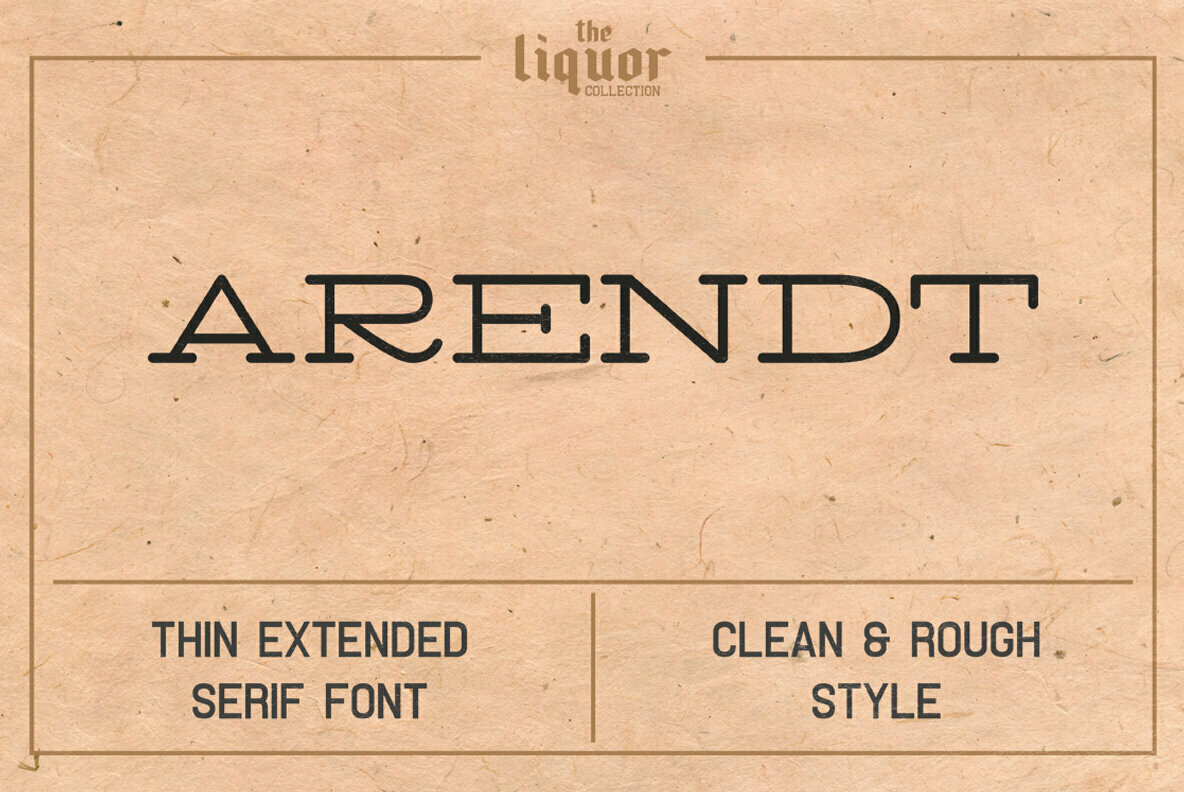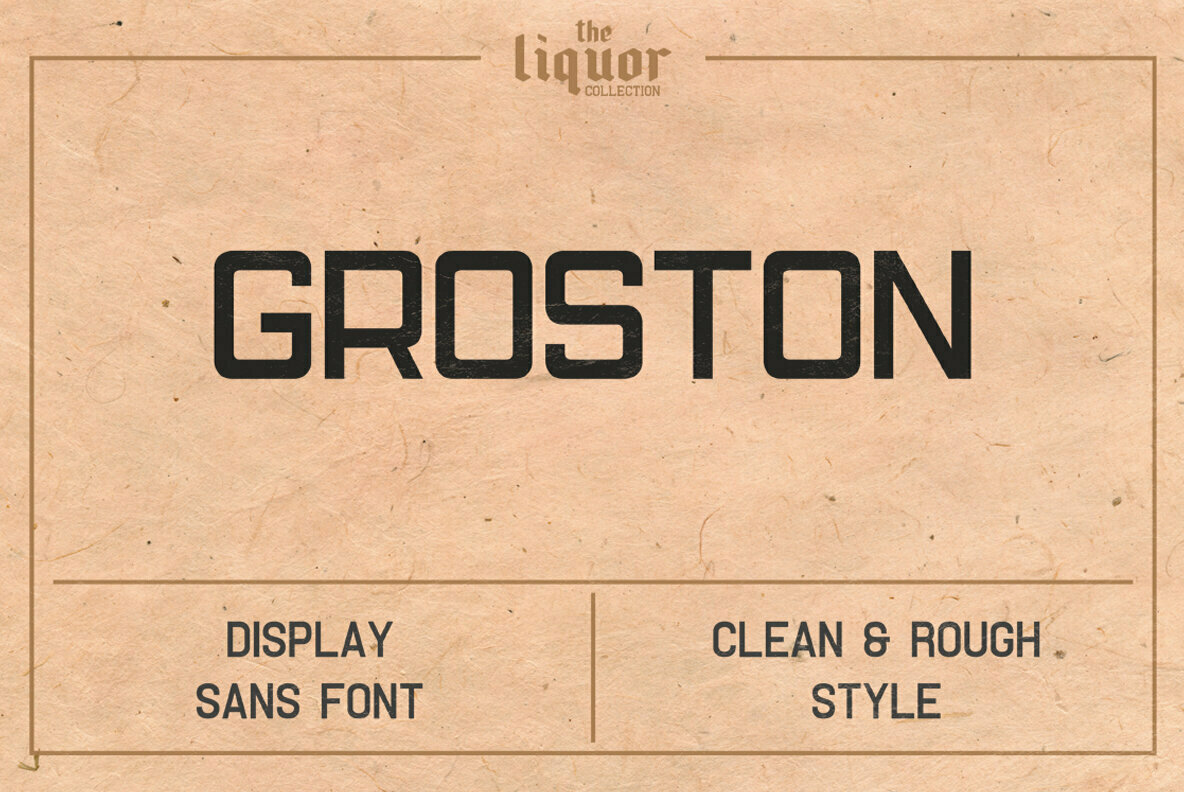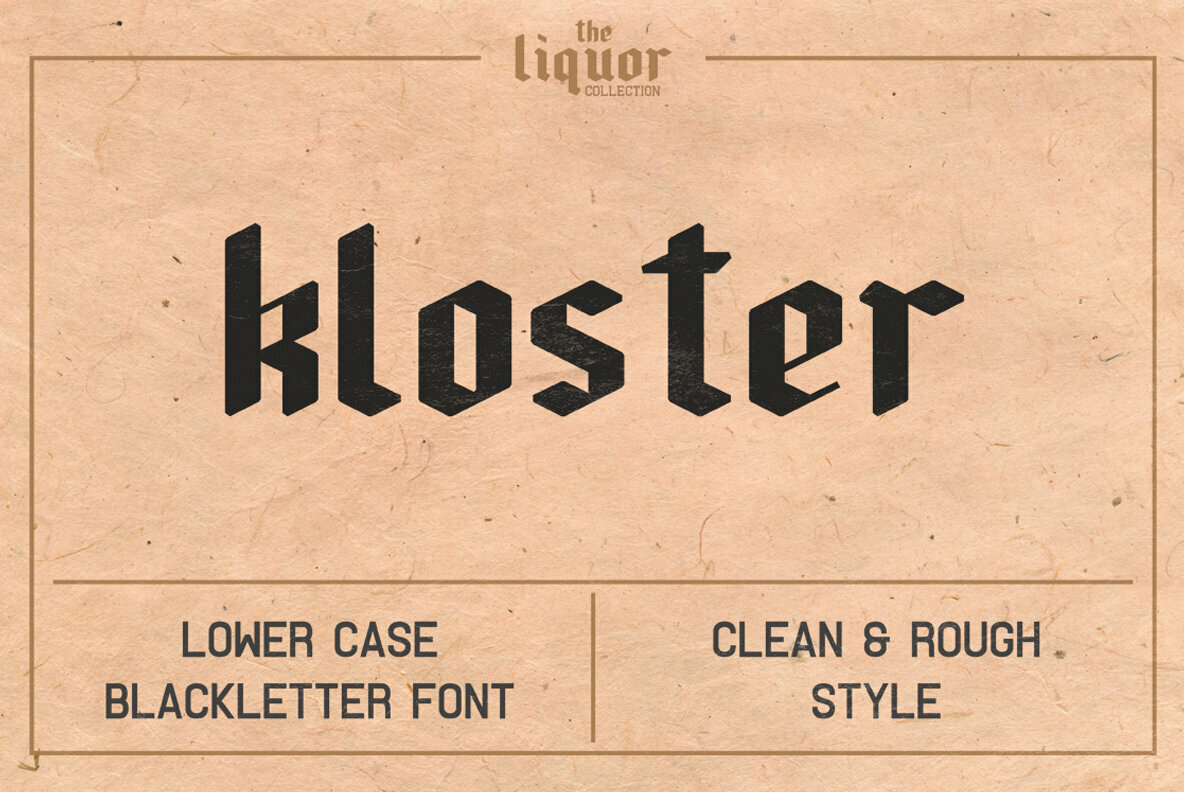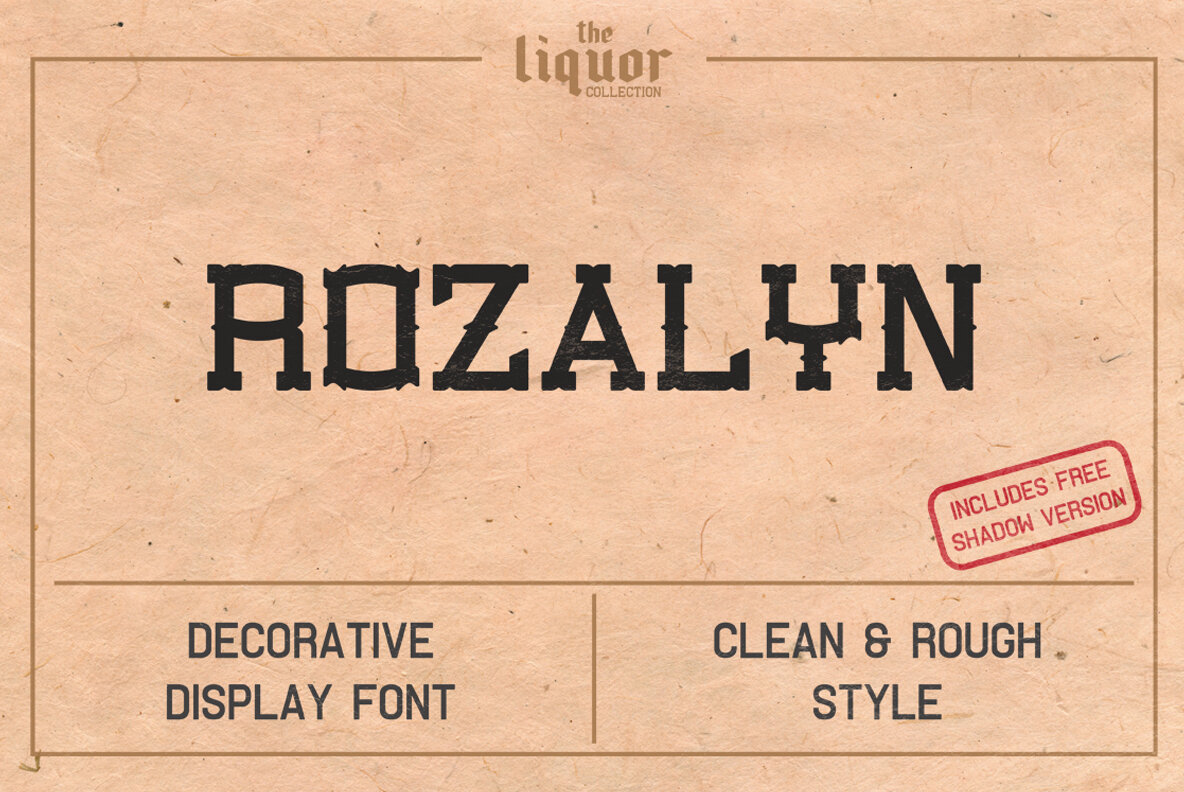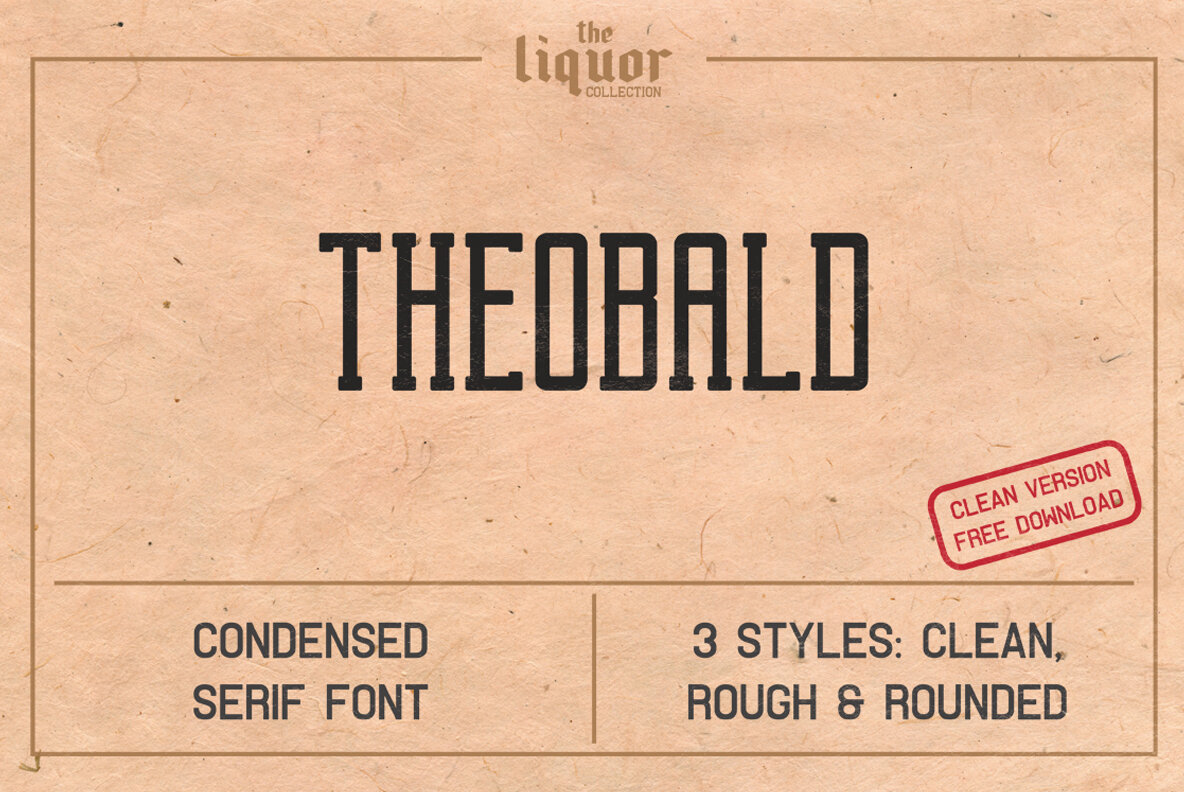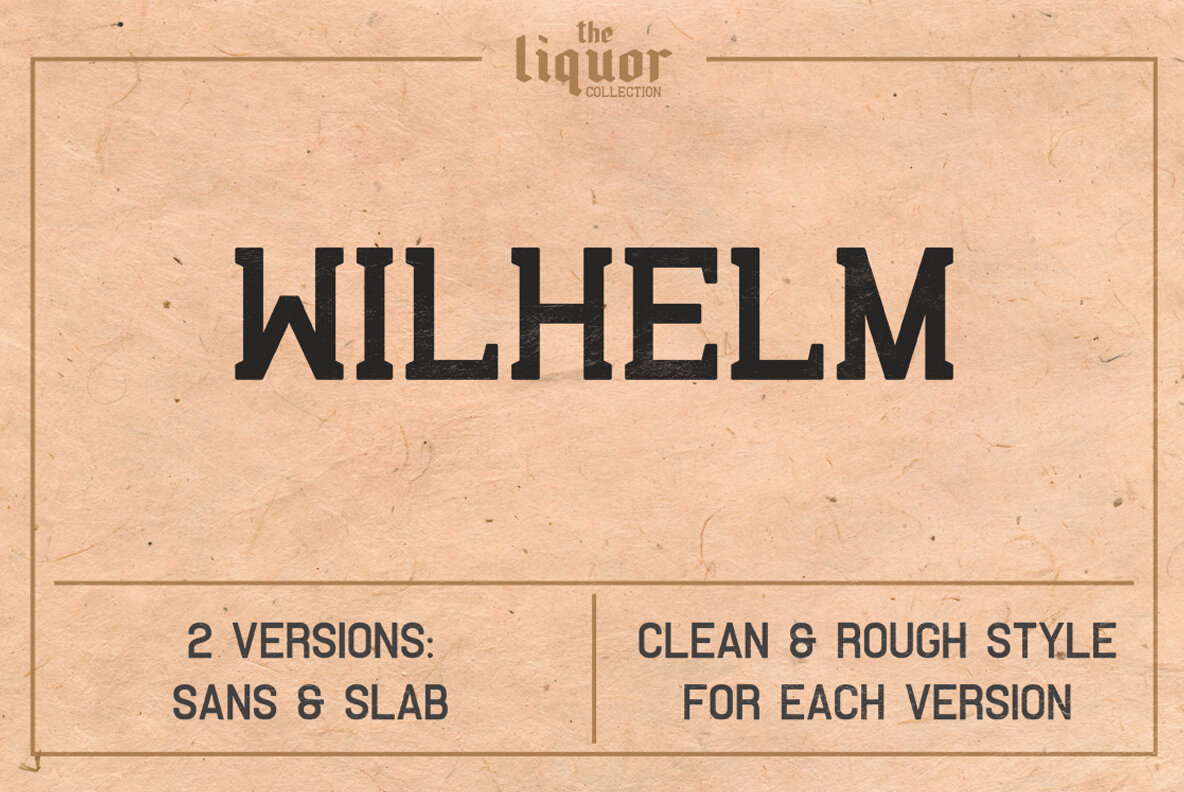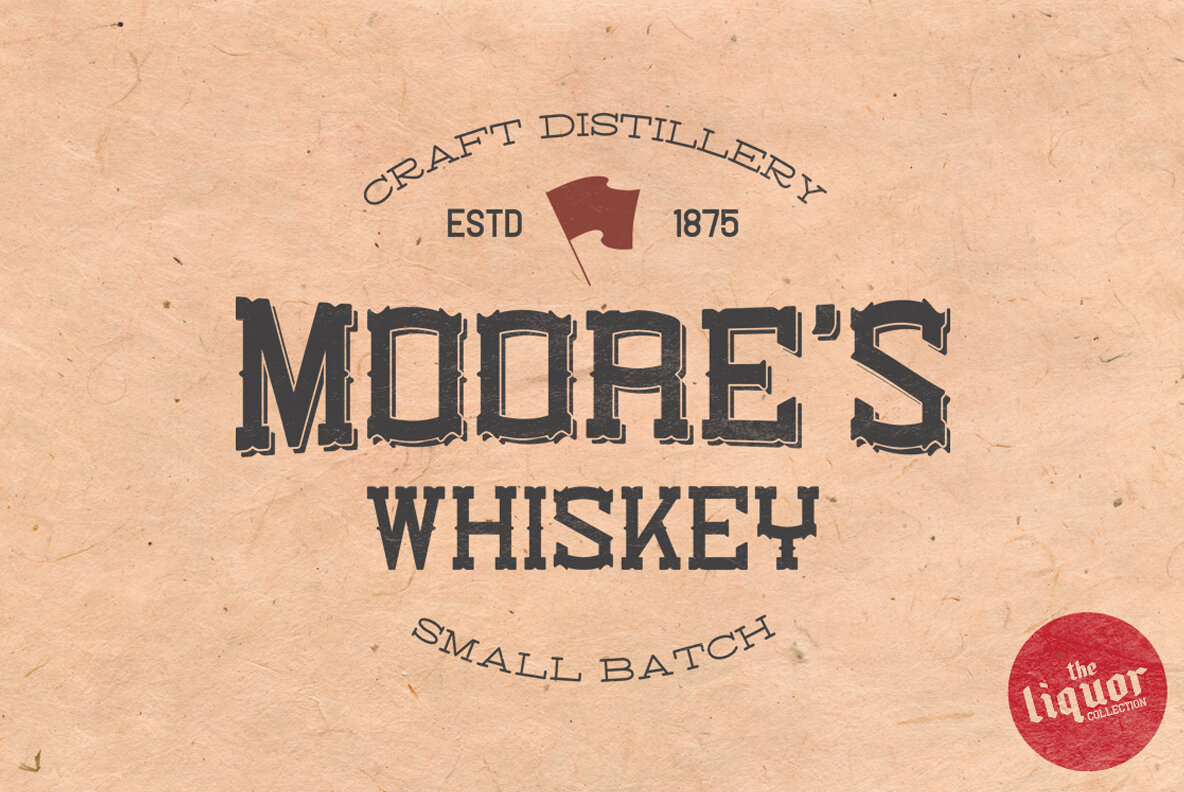
The Liquor Collection Font
Once again spent few long weeks on research, designing and testing several fonts that would match each other. Now "The Liquor Collection" is available for sale. All fonts are inspired by retro fonts used on vintage liquor labels, posters and advertising (whiskey, wine, beer, rum, gin and more).
What does "The Liquor Collection" contain?
- Othon - A bold sans typeface
- Rozalyn - A western decorative typeface
- Wilhelm - A regular sans & slab display font
- Arendt - A thin extended serif typeface
- Groston - A squared sans font
- Kloster - A lower case blackletter typeface
- Theobald - A vintage condensed display font
Rozalyn Shadow contains only basic letters, numerics and punctuation.
Fonts are not textured. Textured designs are prepared for screenshots only!